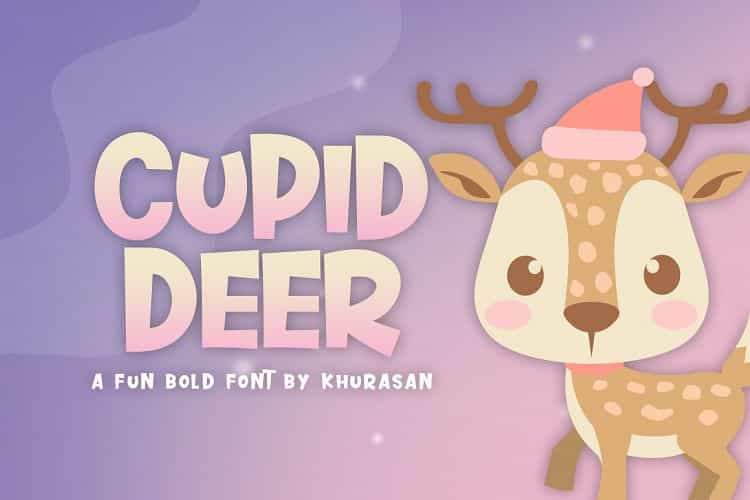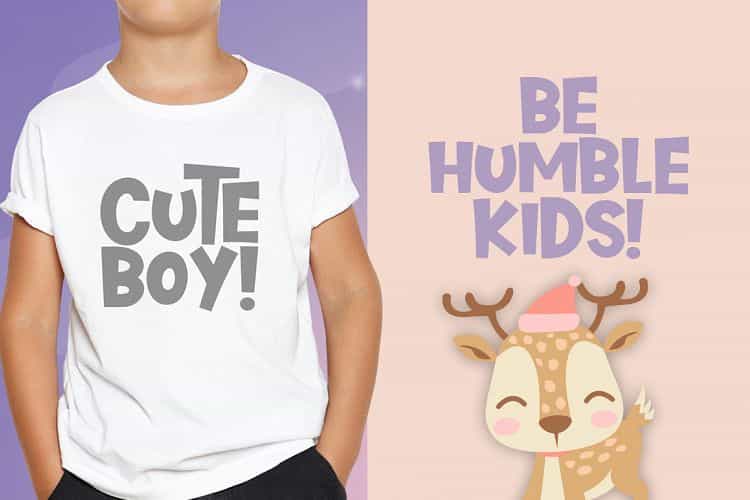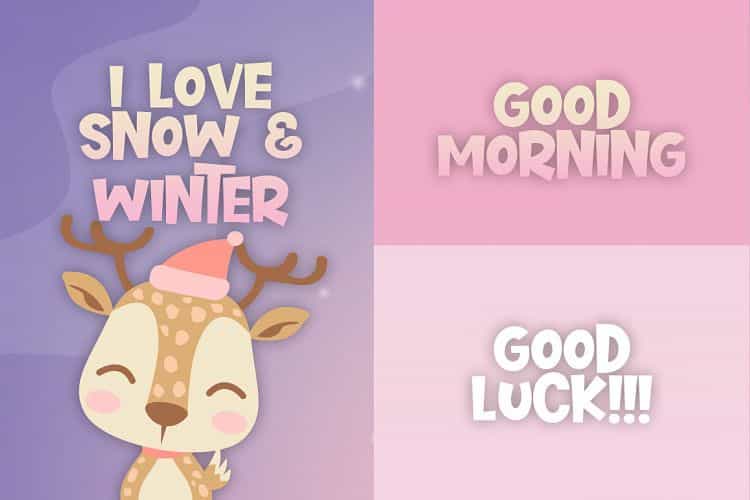
Discover Cupid Deer Font, part of the Sans Serif Display collection—a versatile and unique font perfect for adding a personal touch to your projects. Download it for free and enjoy crafting designs with style, from invitations to social media posts. This font is available exclusively for personal use, giving you the freedom to create without limits. Unlock your creativity with Cupid Deer Font today!
Cupid Deer is a fun and cheerful free bold display typeface for your fun project. Cupid Deer font is perfect for your logo design, branding, greeting card, poster, and any design that you make.